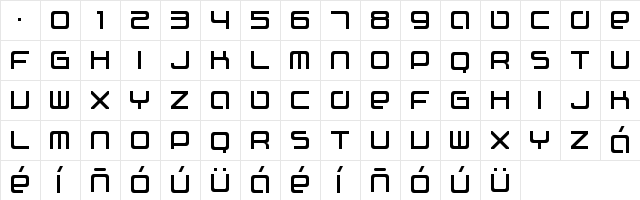
Q Modular Regular
Design Context for Q Modular Typeface
Q Modular is a composed and adaptable typeface that performs quietly and consistently across a wide range of design contexts.